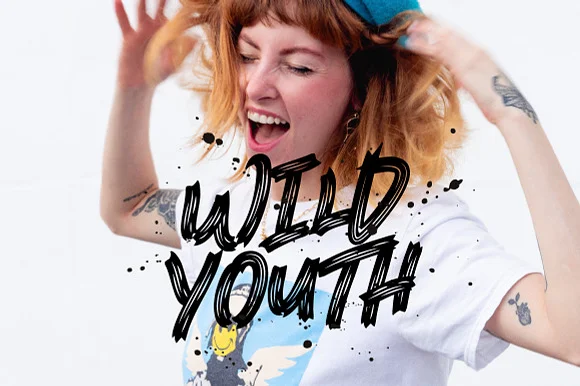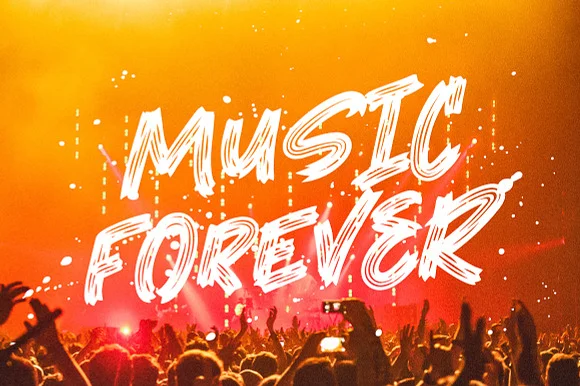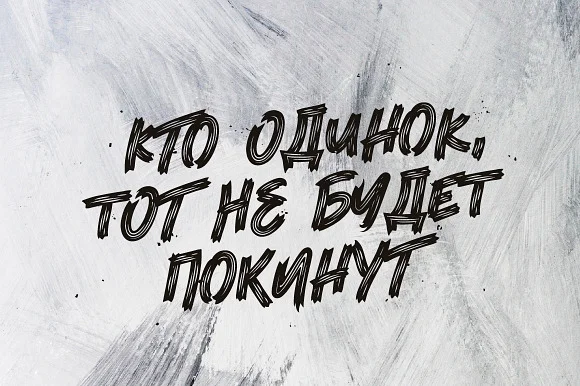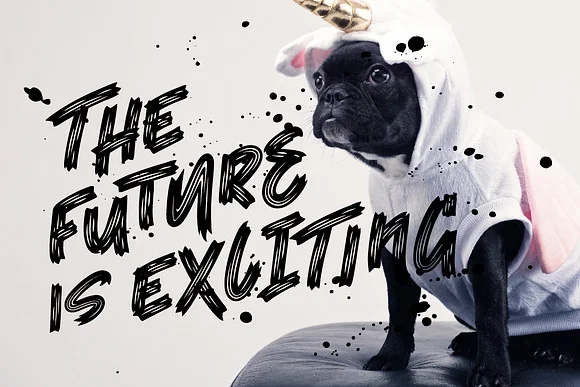
Coffee Bear Font
Typography shapes perception at a subconscious level. Coffee Bear leverages optical balance across all weights to make every composition feel considered. The typeface brings a versatile sensibility to a broad range of creative disciplines, with distinctive character without sacrificing readability that holds up whether the work is print-first or screen-first.
In practice, Coffee Bear proves particularly effective for web design, editorial layouts, product labels, packaging design, brand identity systems. Designers reaching for it find that the type decisions feel resolved rather than laboured — a useful quality when client timelines are tight.
The range of applications extends to signage systems, advertising campaigns, environmental graphics, annual reports. That breadth is deliberate: the proportions and spacing were stress-tested across a wide range of mock briefs before the typeface was finalised.
UX designers establishing typographic systems for digital products find Coffee Bear a reliable choice for projects that demand both personality and restraint. The design avoids the self-conscious quirkiness that dates quickly, settling instead for considered distinctiveness that holds up over time.